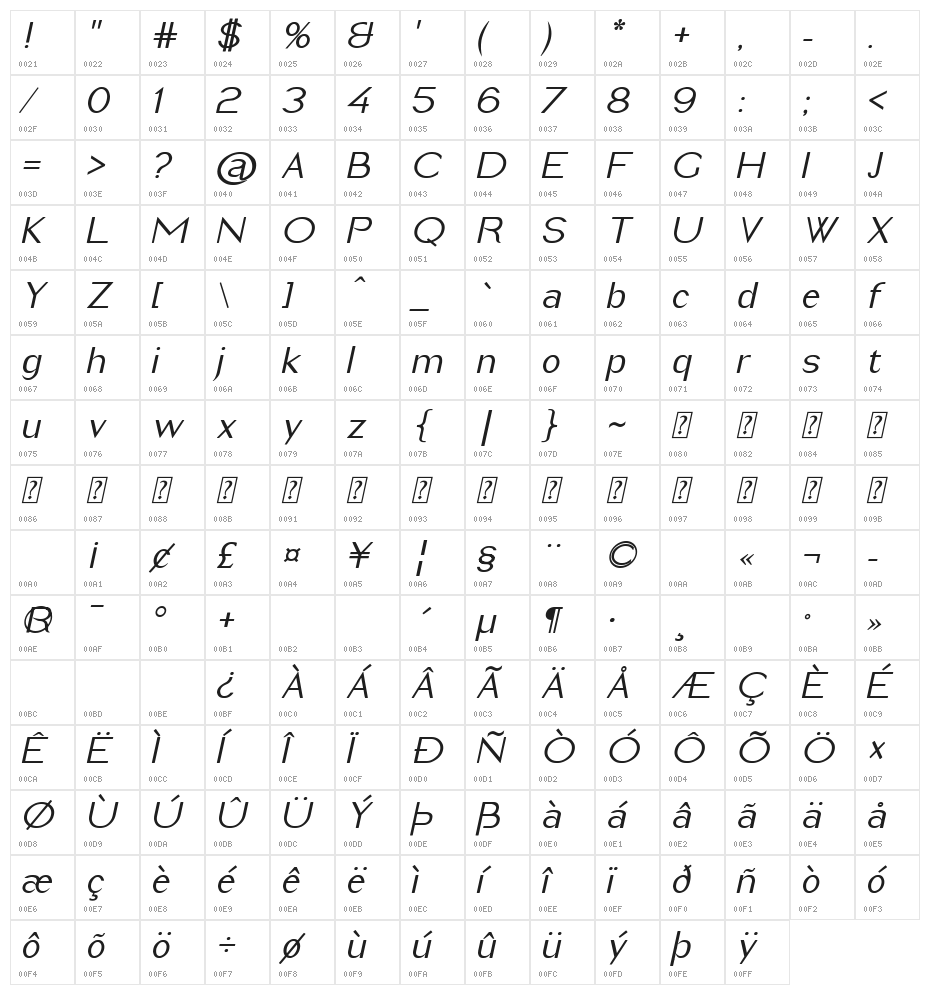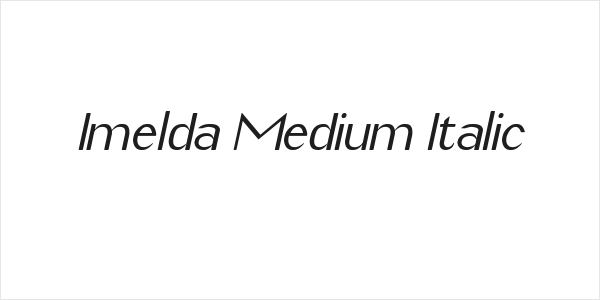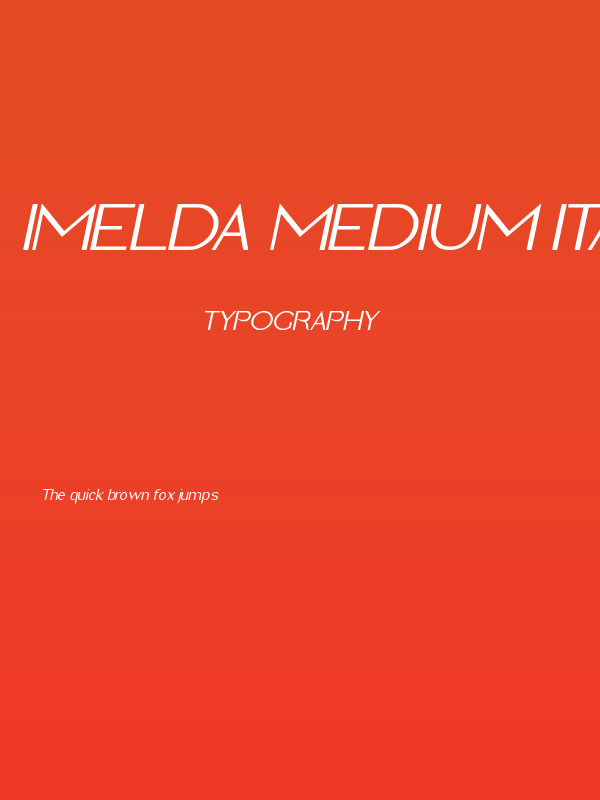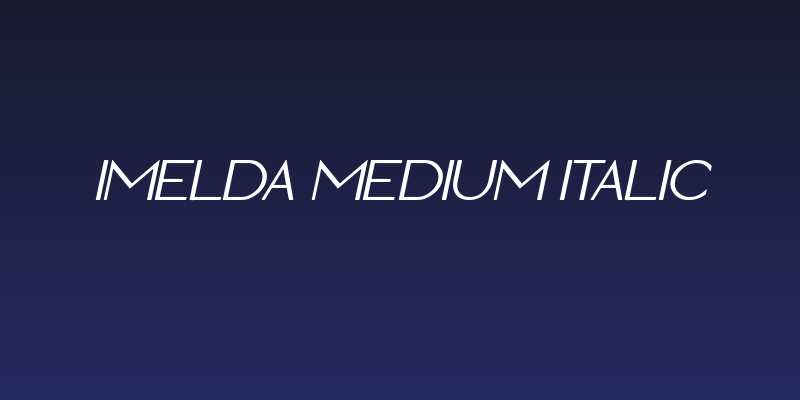
Imelda Medium Italic Font
Imelda Medium Italic Description
This font features a sleek and modern design with a distinct italic slant, giving it a dynamic and elegant appearance. The characters are well-proportioned with a consistent stroke width, providing a clean and professional look. The uppercase letters are tall and slightly condensed, while the lowercase letters maintain a harmonious flow. The numerals are clear and legible, making them suitable for various applications. Special characters are included, enhancing its versatility. Overall, this font exudes a sense of sophistication and style, making it ideal for contemporary design projects.